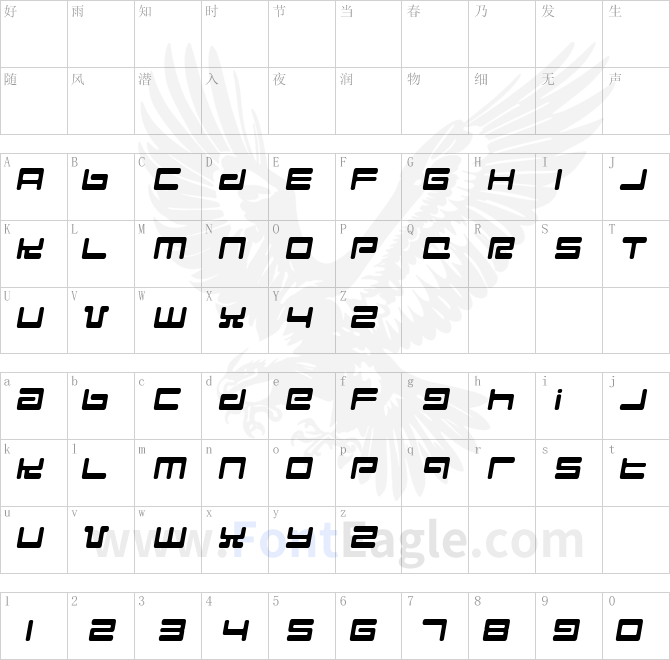
- Font name:Hyperspeed
Hyperspeed is a great font, widely used in graphic design, single-page menu design, poster design and other fields, and is deeply loved by designers.Hyperspeed download.